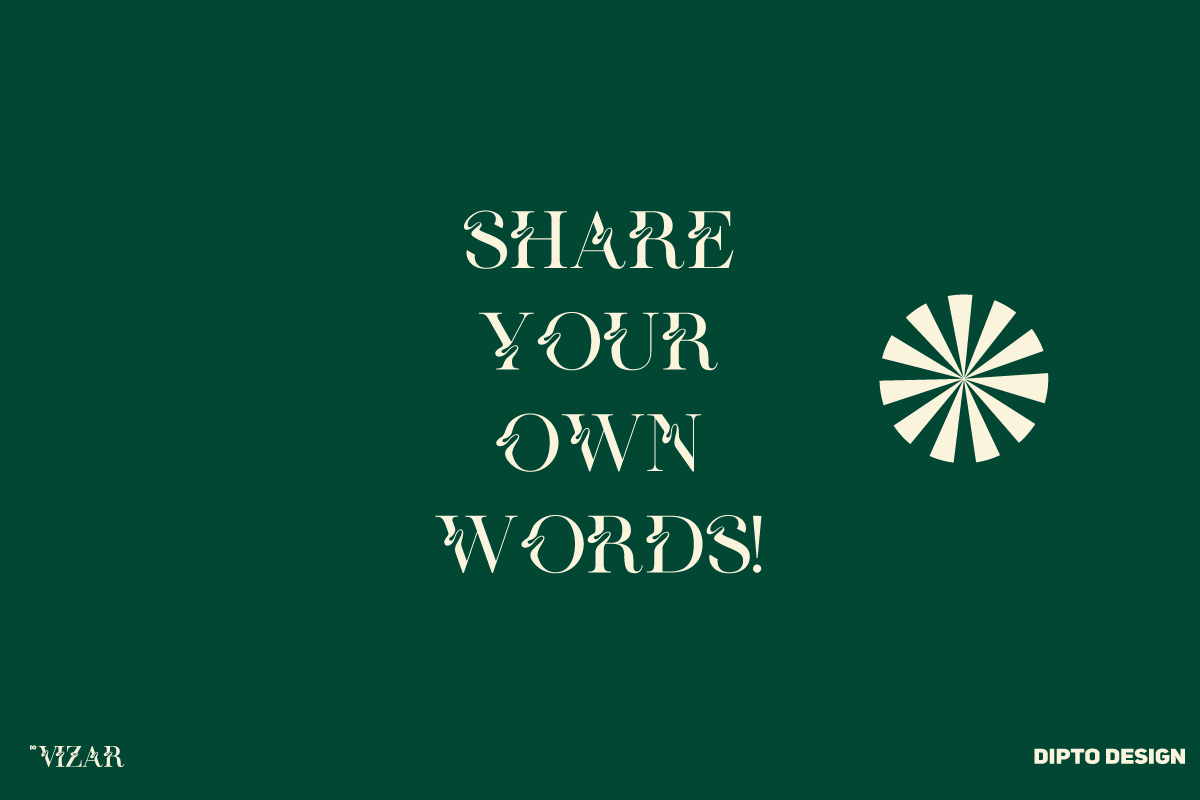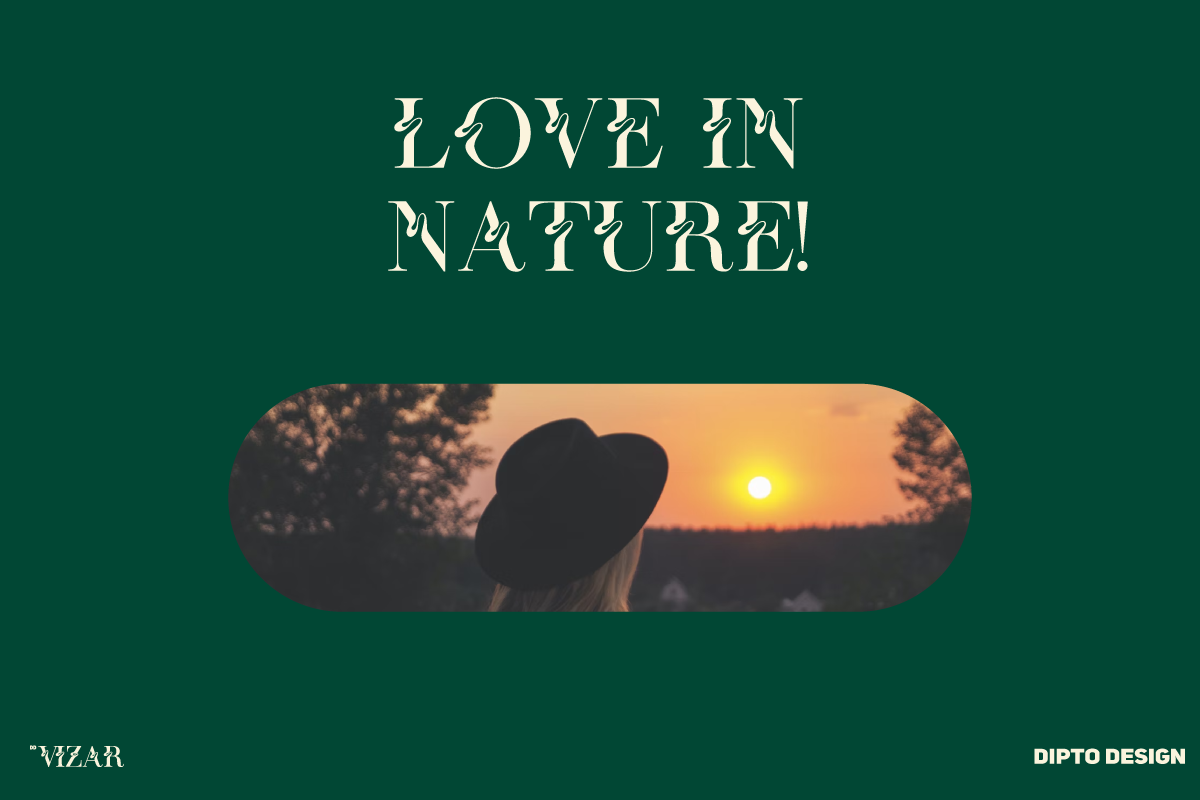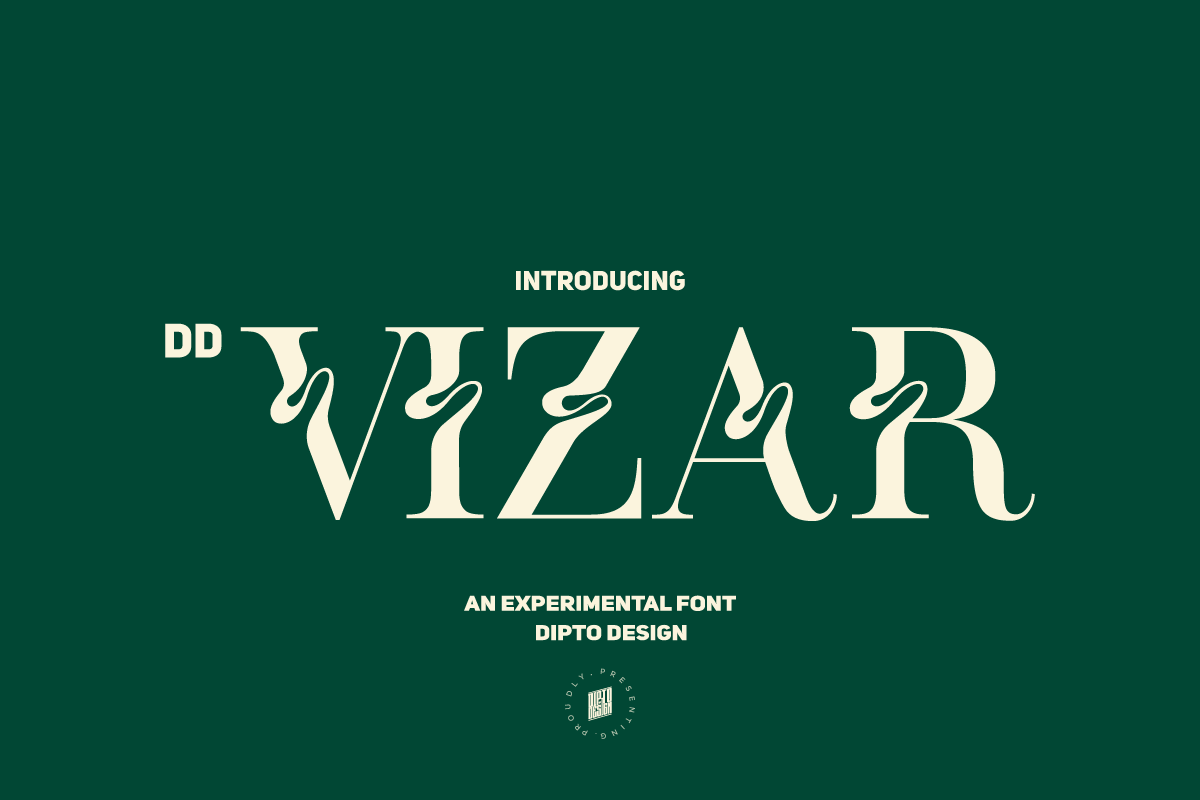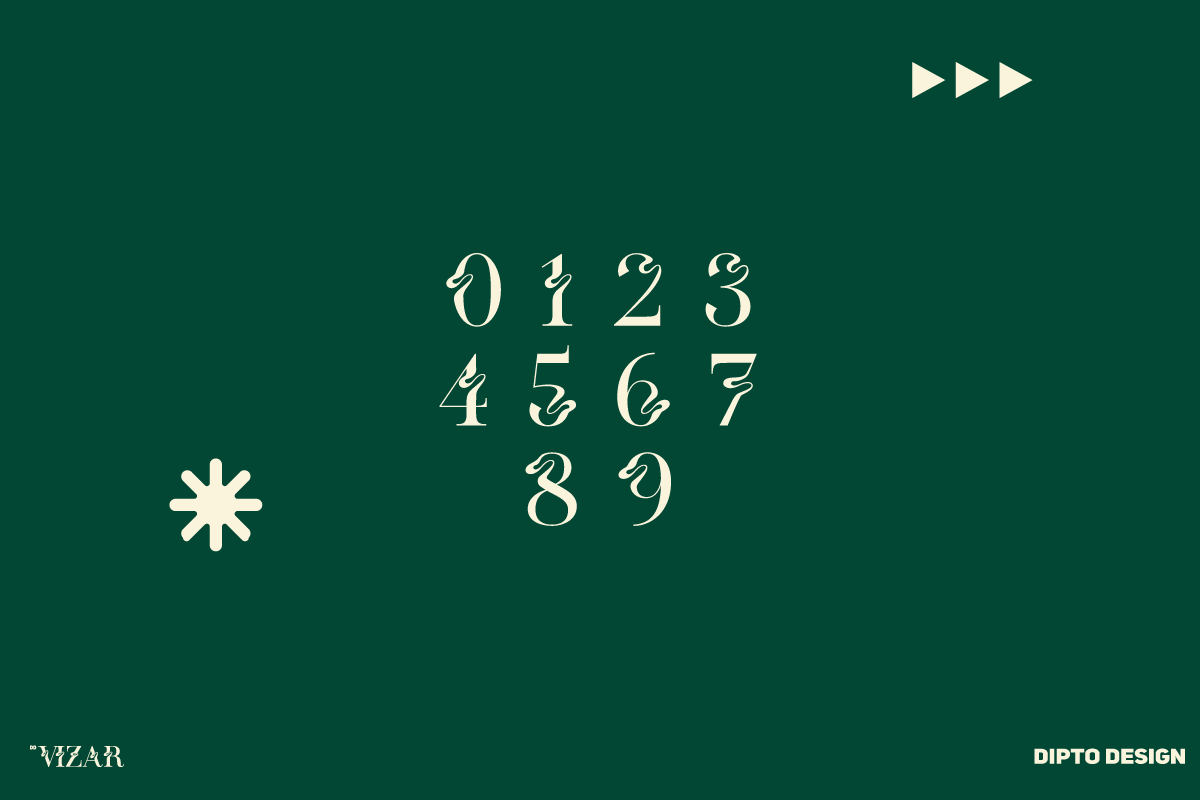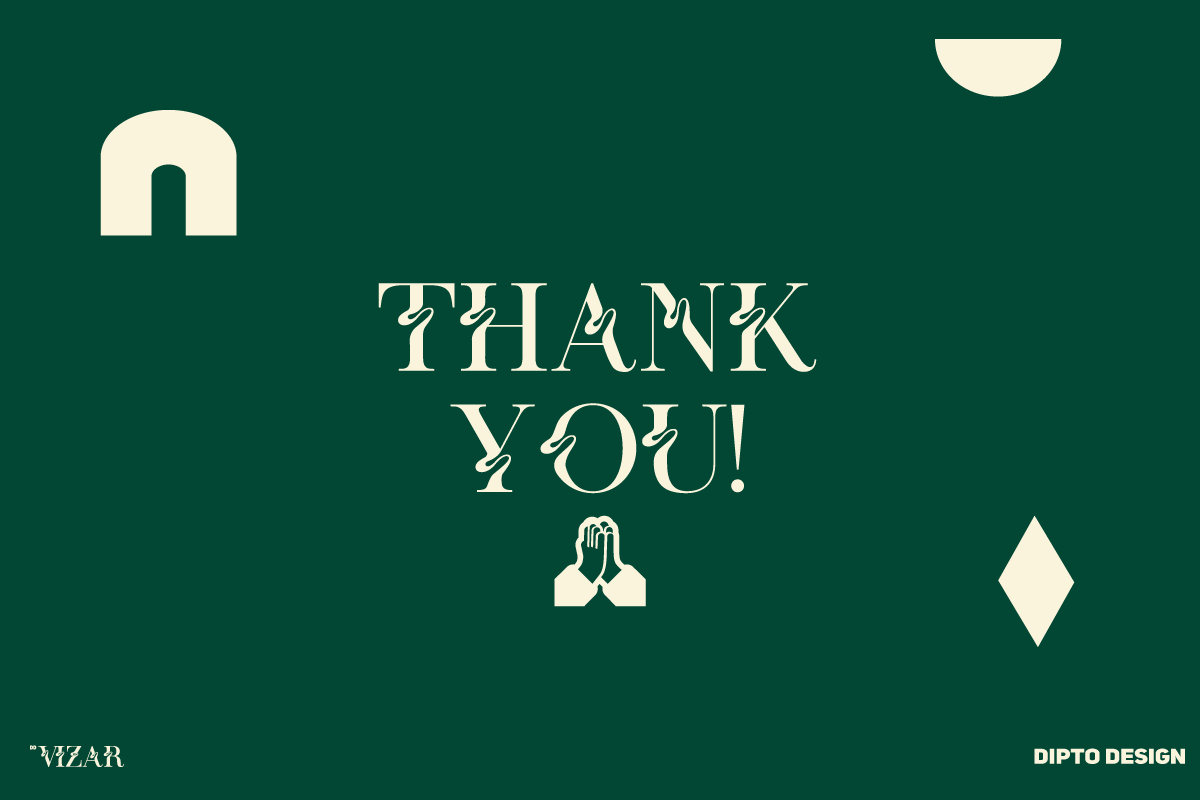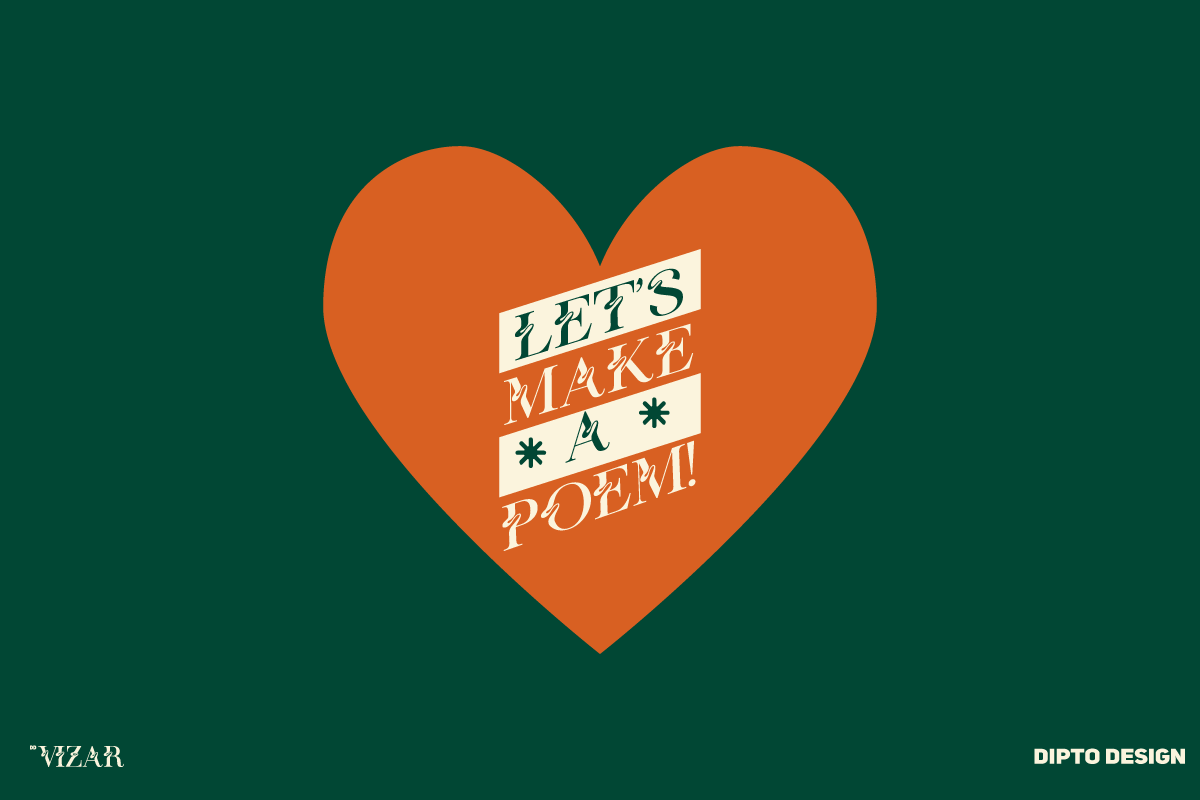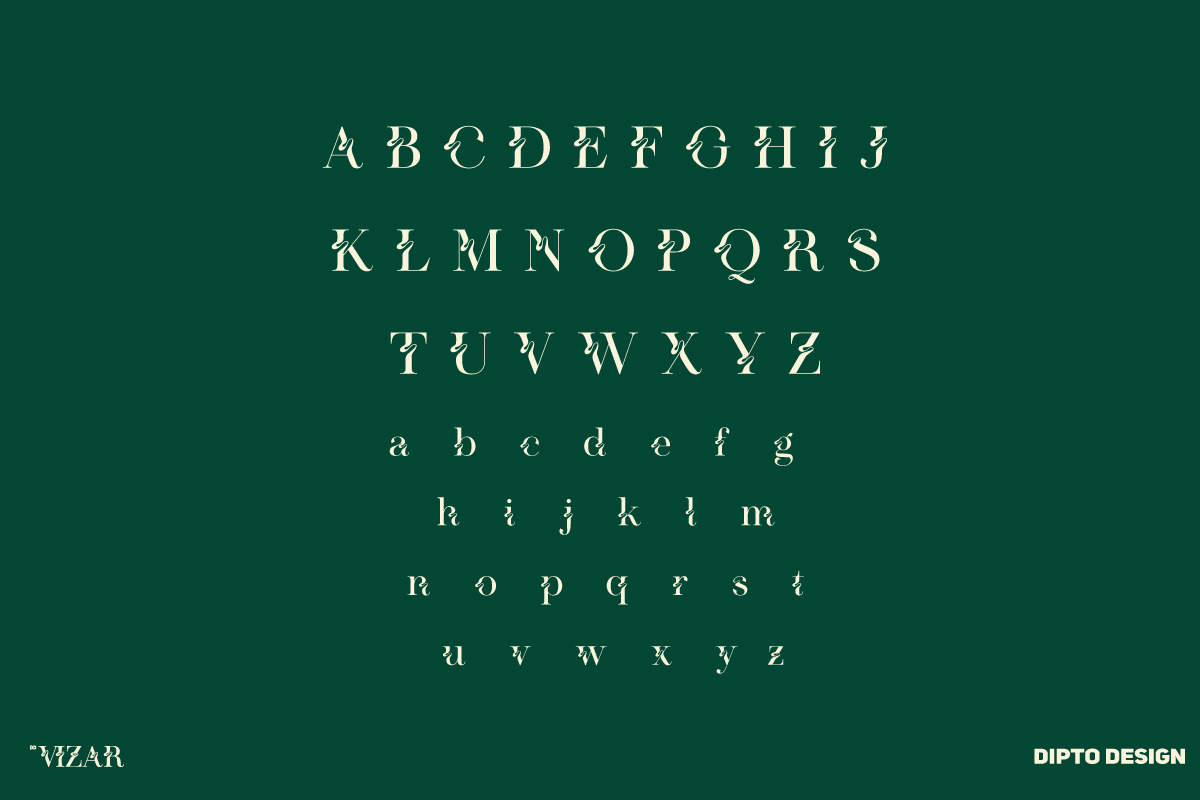
DD Vizar - An Experimental Typeface
DD Vizar is an experimental font. "DD Vizar" — an avant-garde font that pushes the boundaries of design! This experimental typeface is a bold statement for creators seeking to break free from the ordinary. With its unique character set and innovative design, "DD Vizar" transforms text into a visual journey. Perfect for those who dare to be different, this font adds an edgy flair to logos, headlines, and creative projects. Elevate your designs and make a statement with "DD Vizar."
- Uppercase : Display
- Lowercase : Display
- Punctuation and Marks
- Stylistic Set